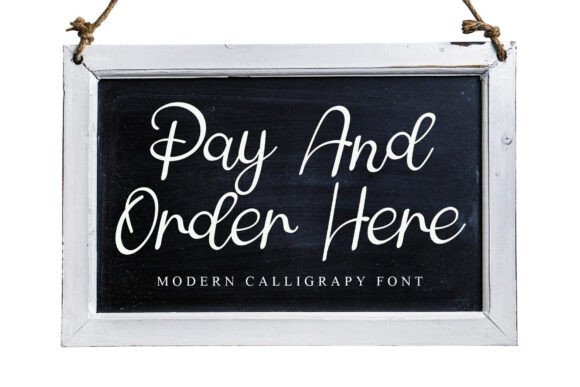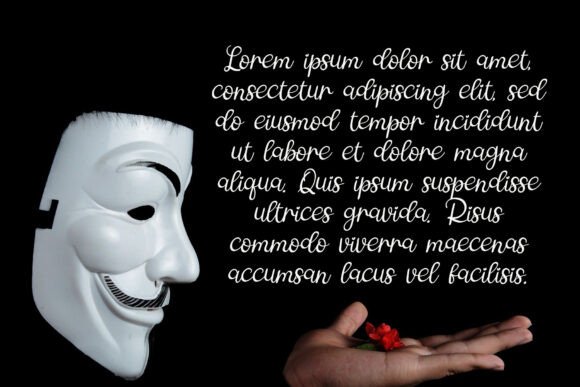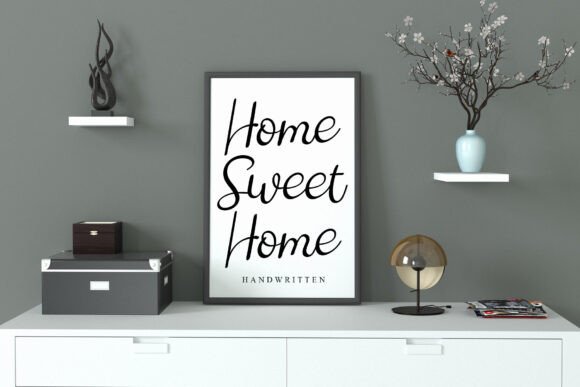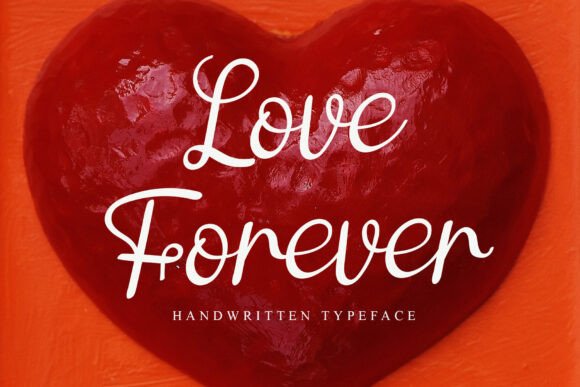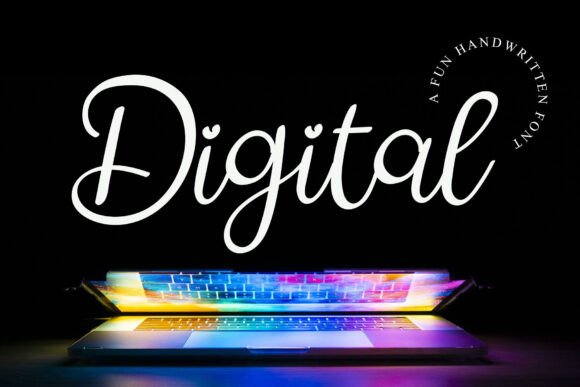
Introducing Digital Font: Elevate Your Designs with a Touch of Elegance
In the world of digital design, fonts play a crucial role in conveying the tone and aesthetic of a project. For designers and crafters seeking a unique and elegant touch, the Digital font is an exceptional choice. This versatile font is perfect for a wide range of applications, from wedding invitations and greeting cards to billboards, logos, and business cards.
The Unique Features of Digital Font
What sets Digital font apart is its distinctive, hand-crafted appearance. The font features a varied baseline, which gives it a natural, hand-made touch. This characteristic makes it ideal for designs that require a personal and elegant feel. Whether you’re creating wedding invitations or business cards, Digital font adds a level of sophistication and charm that elevates your work.
The versatility of Digital font makes it suitable for numerous design applications. Here are some of the ways you can use this elegant font:
- Wedding Invitations: Add a touch of romance and sophistication to your wedding invitations with Digital font. Its elegant appearance sets the tone for a memorable and stylish event.
- Greeting Cards: Whether it’s a birthday, anniversary, or holiday greeting, Digital font brings a personal and heartfelt touch to your cards.
- Billboards: Make a statement with Digital font on billboards. Its unique and elegant appearance ensures that your message stands out and captures the attention of your audience.
- Logos: Create a lasting impression with a logo designed using Digital font. Its distinctive style helps to establish a strong brand identity.
- Business Cards: Elevate your business cards with Digital font, adding a professional yet personal touch that sets you apart from the competition.
Why Choose Digital Font?
With so many fonts available, why choose Digital font for your projects? Here are a few compelling reasons:
- Elegance and Versatility: Digital font combines elegance with versatility, making it suitable for a wide range of design applications.
- Hand-Crafted Appearance: The font’s natural, hand-made touch adds a unique and personal element to your designs.
Tips for Using Digital Font Effectively
To make the most of Digital font, consider the following tips:
- Pair with Complementary Fonts: Combine Digital font with complementary fonts to create visually appealing and harmonious designs.
- Experiment with Colors: Don’t be afraid to experiment with different colors to find the perfect match for your design.
Digital font is a unique and elegant addition to any designer’s toolkit. Its hand-crafted appearance, combined with PUA encoding, makes it an excellent choice for a variety of projects. Whether you’re creating wedding invitations, logos, or business cards, Digital font brings a touch of sophistication and charm that elevates your work. Explore the possibilities of Digital font and discover how it can enhance your designs.